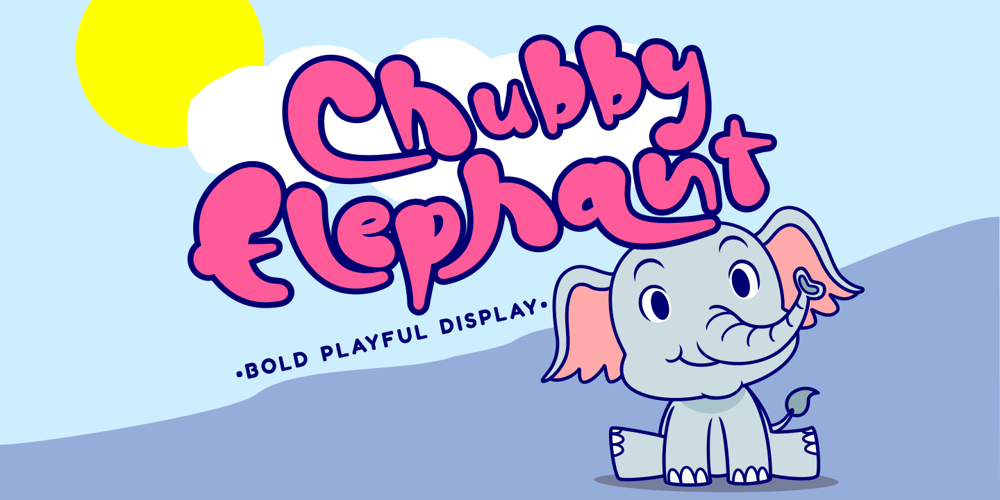
Chubby Elephant Font Family was designed by Putra Novembria Candra Kusuma and published by Putracetol. Chubby Elephant contains 1 styles and family package options. Chubby Elephant – Bold Playful Display Font. This font is very bold and playful. With a childish style, it will be very suitable for your project, which is related to children. Such as story books, illustrations, comic books, t-shirts, posters, greeting cards, logos, branding, stickers, svg, crafting. This font can be installed on MAC OS and Windows OS, it can also be installed in the procreate and cricut applications.Come with lot of ligatures character, its help you to make great lettering. This font is also support multi language.